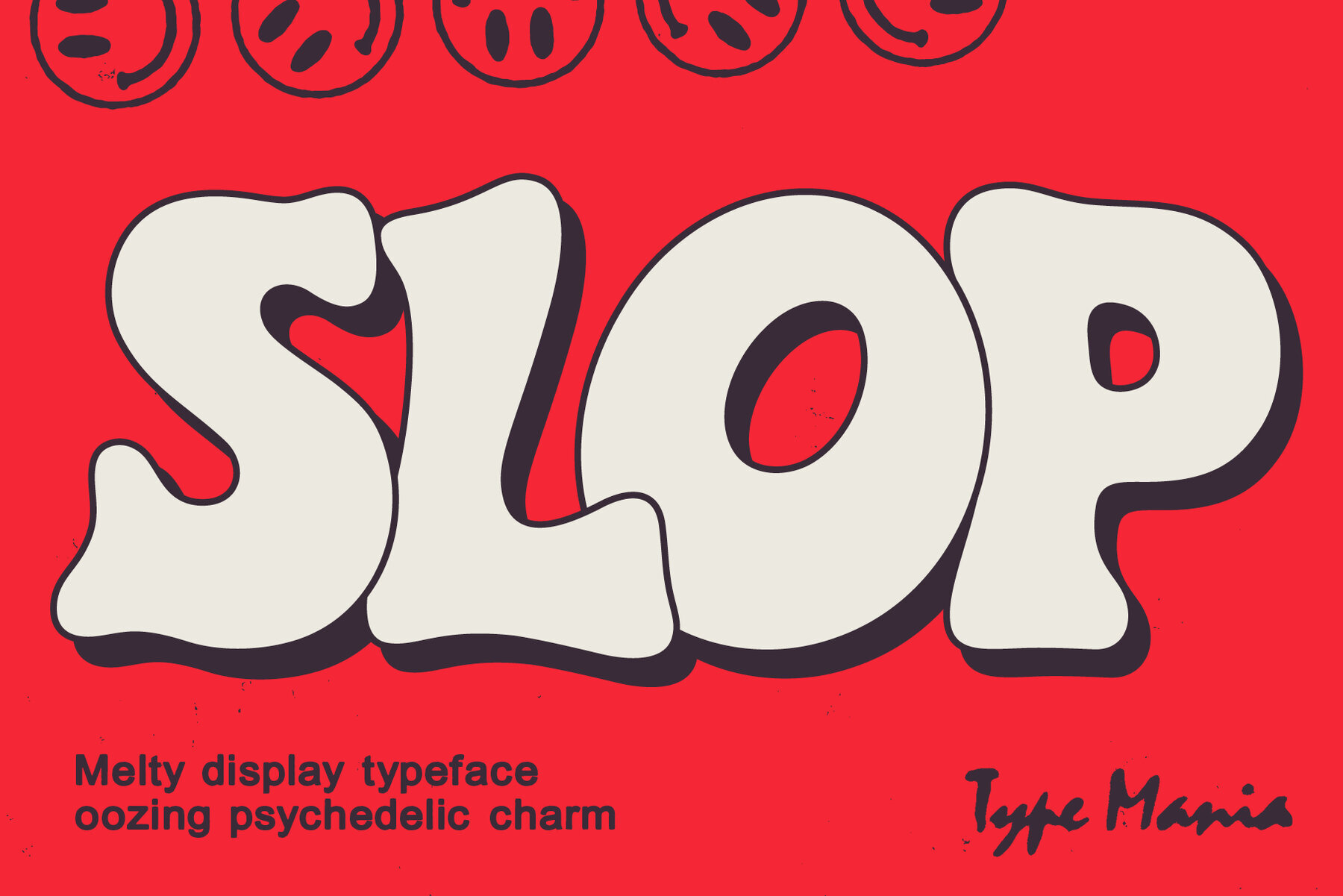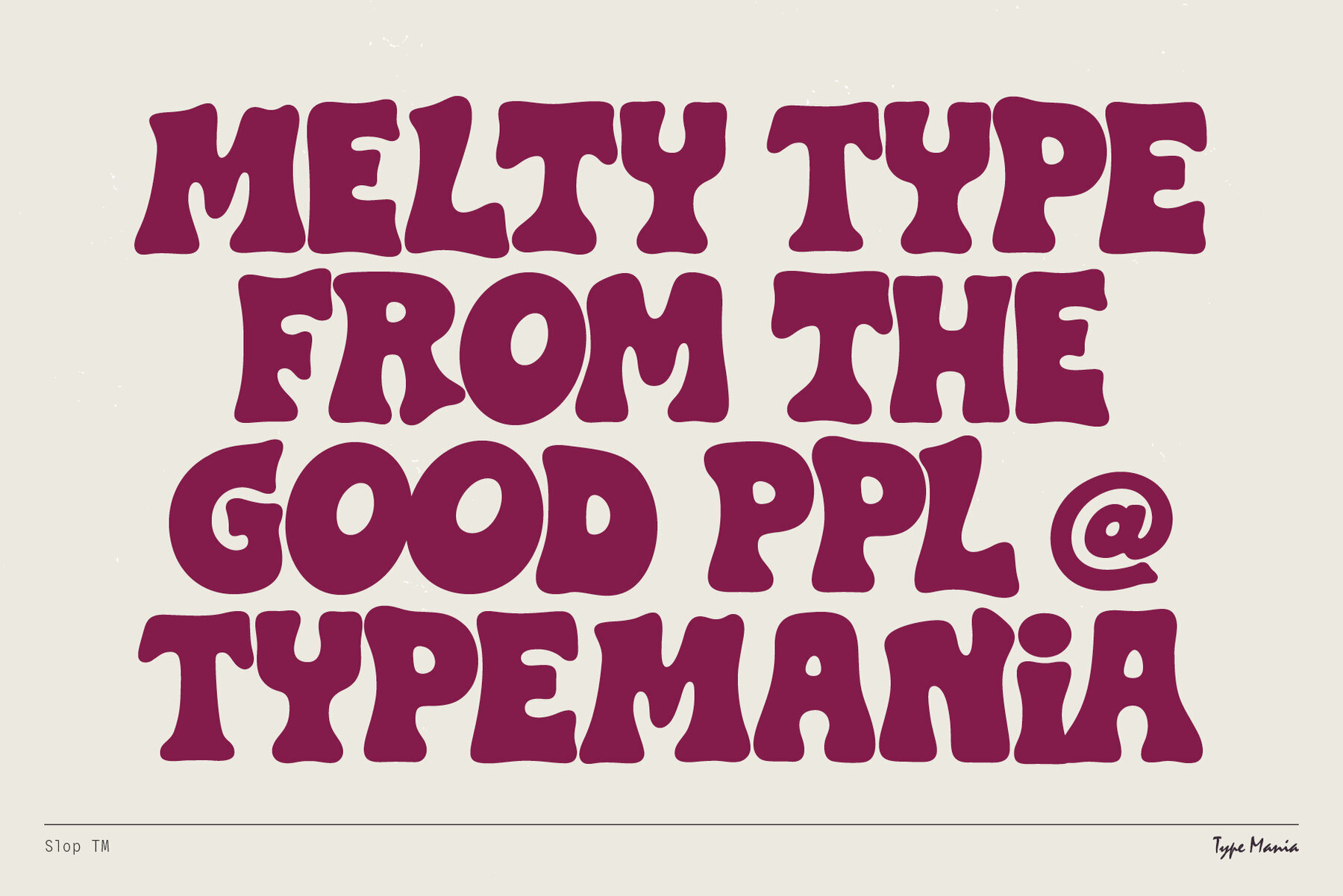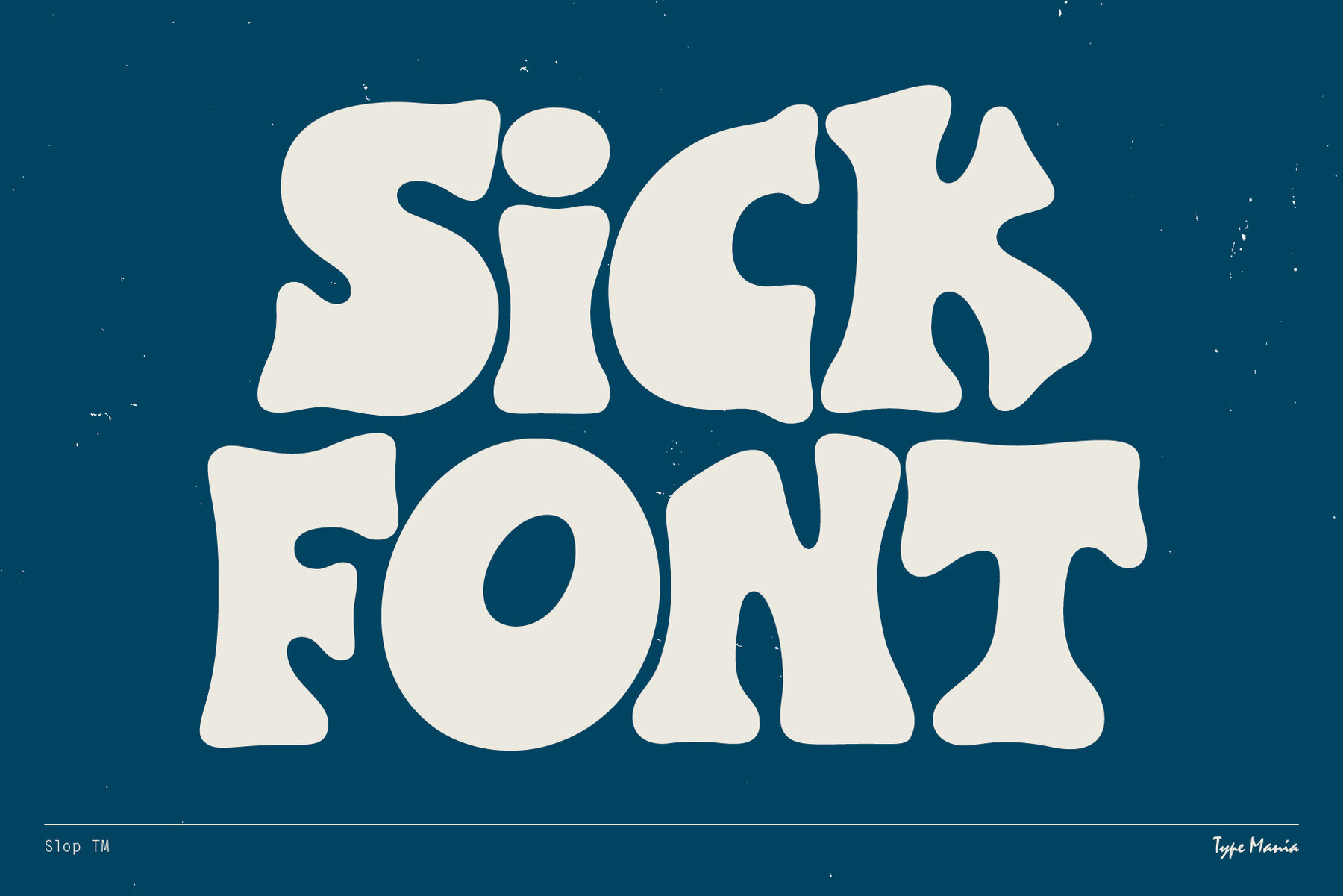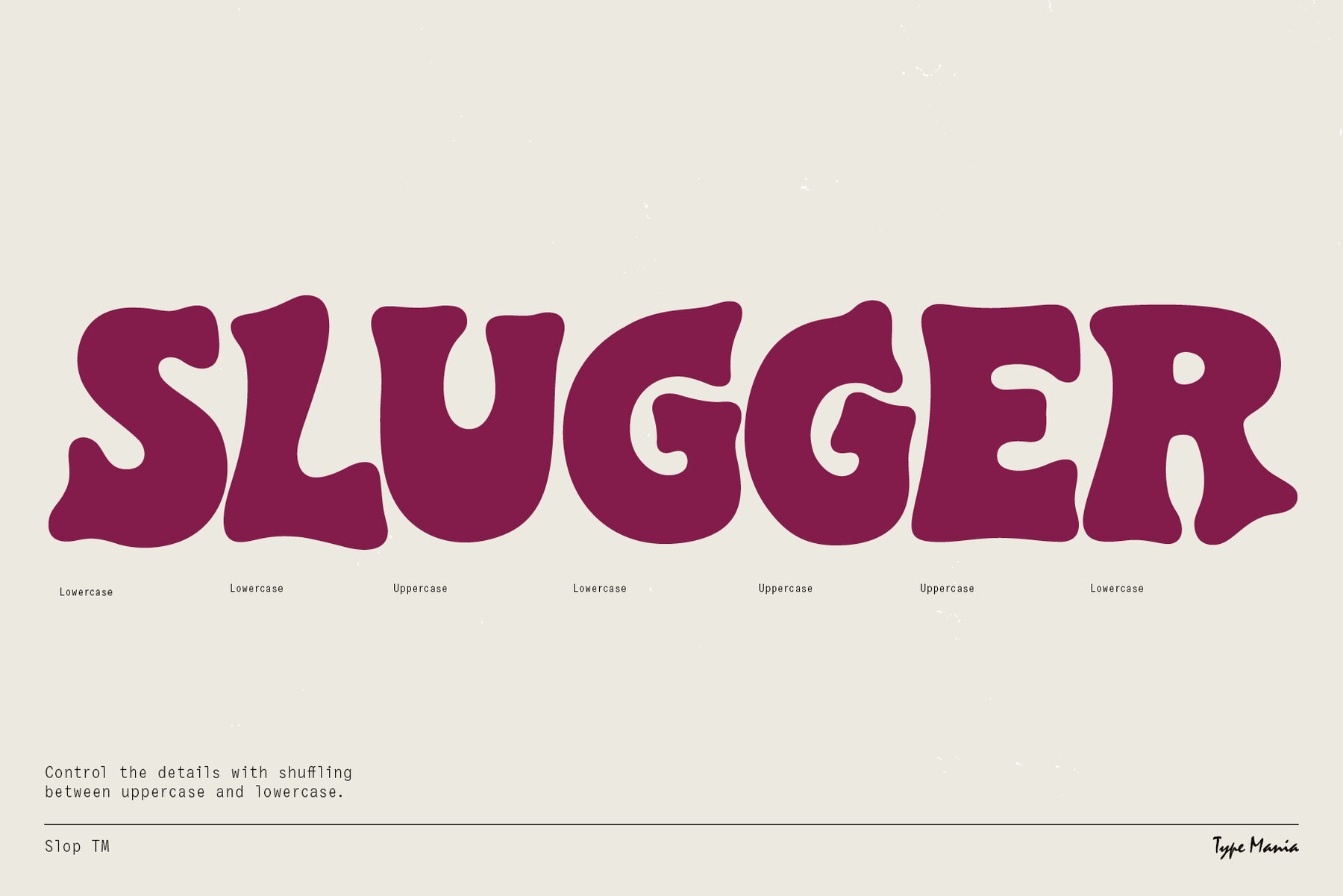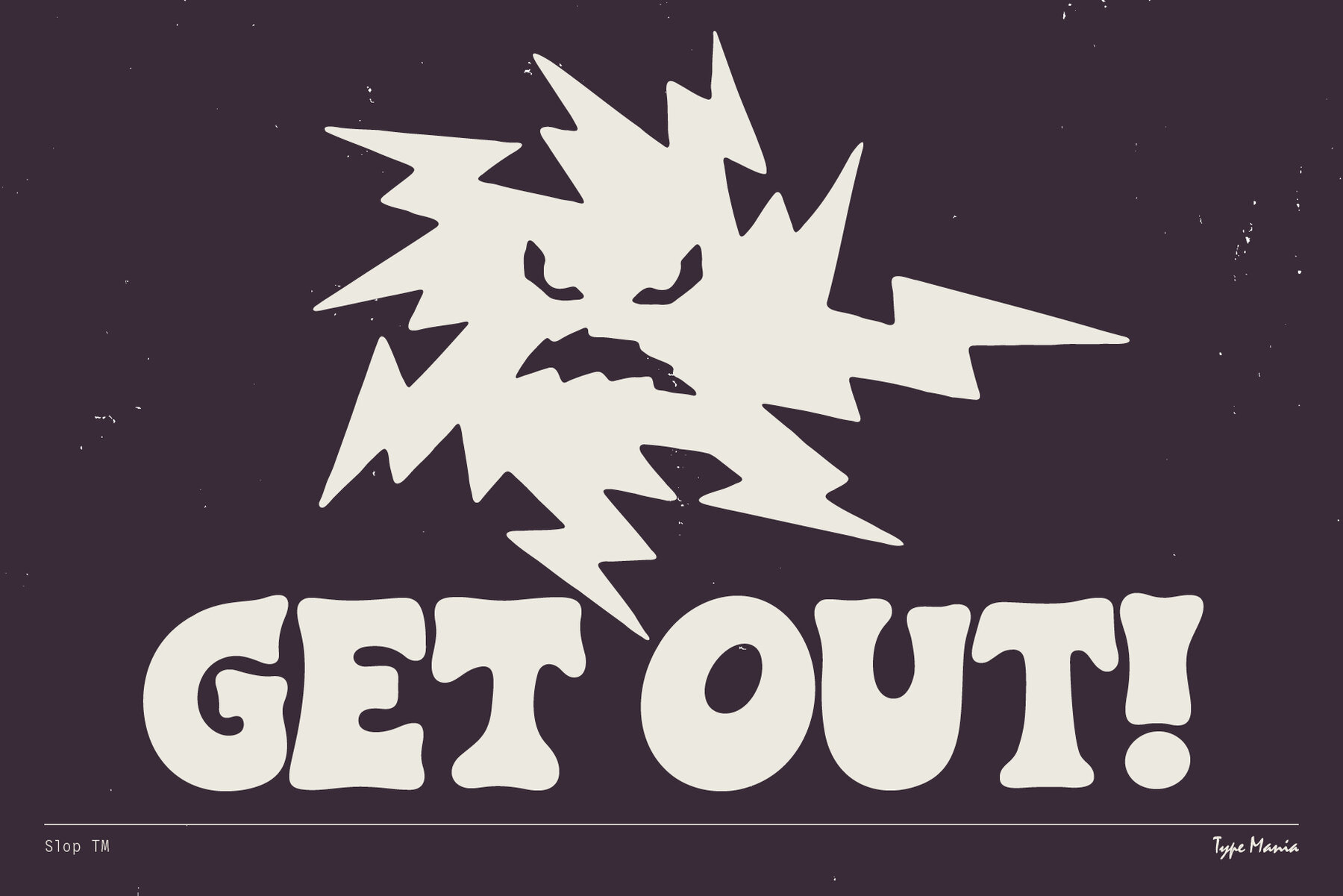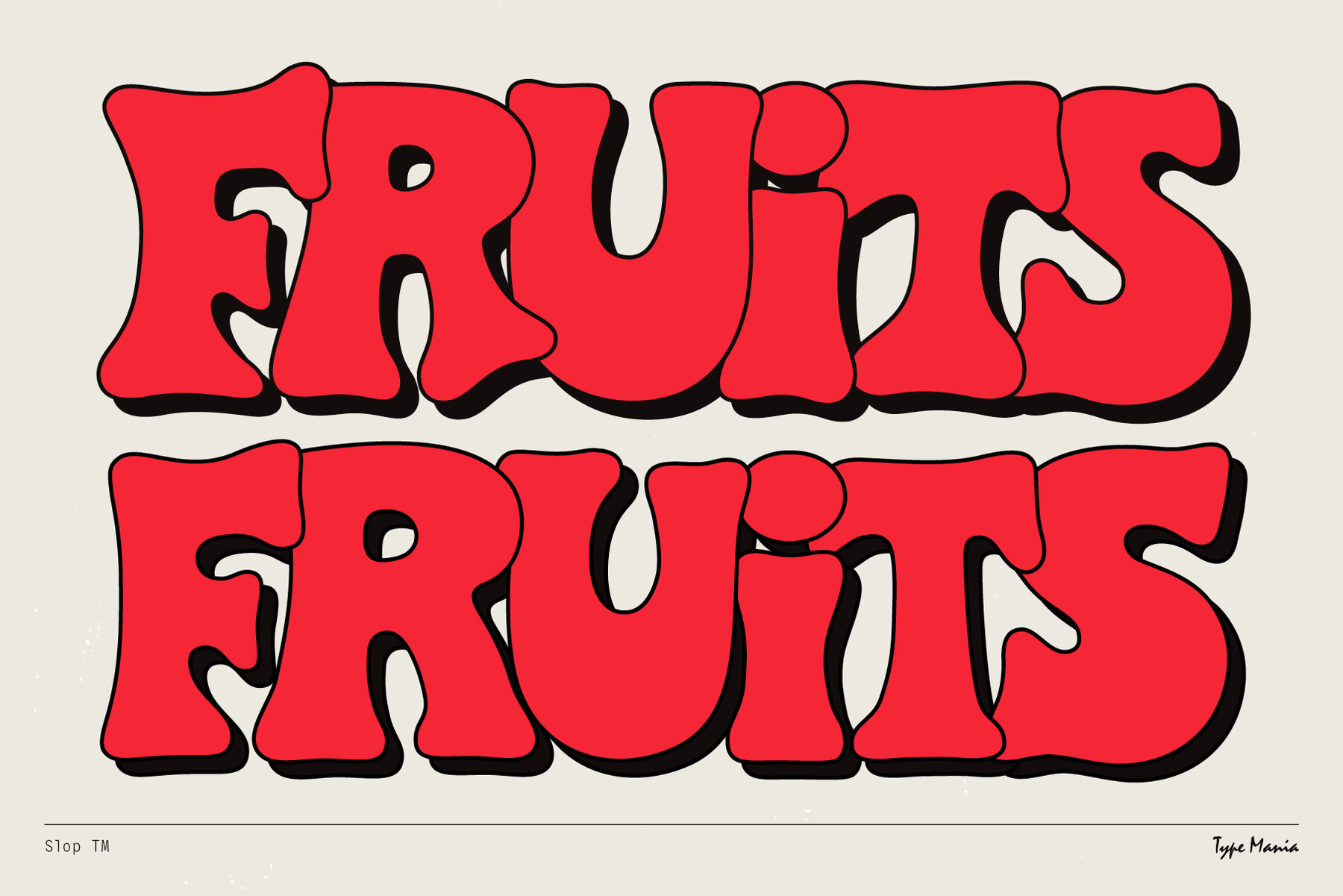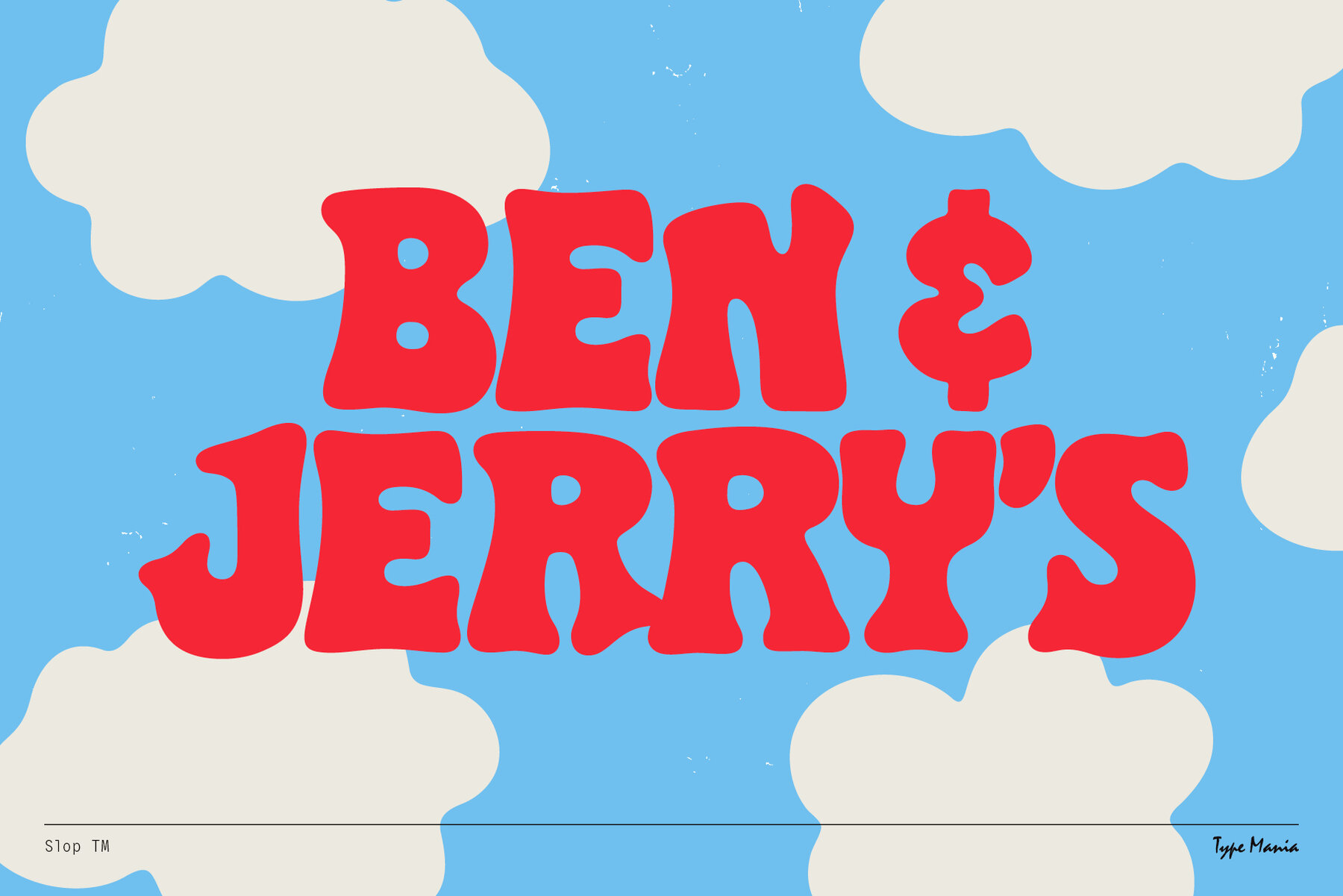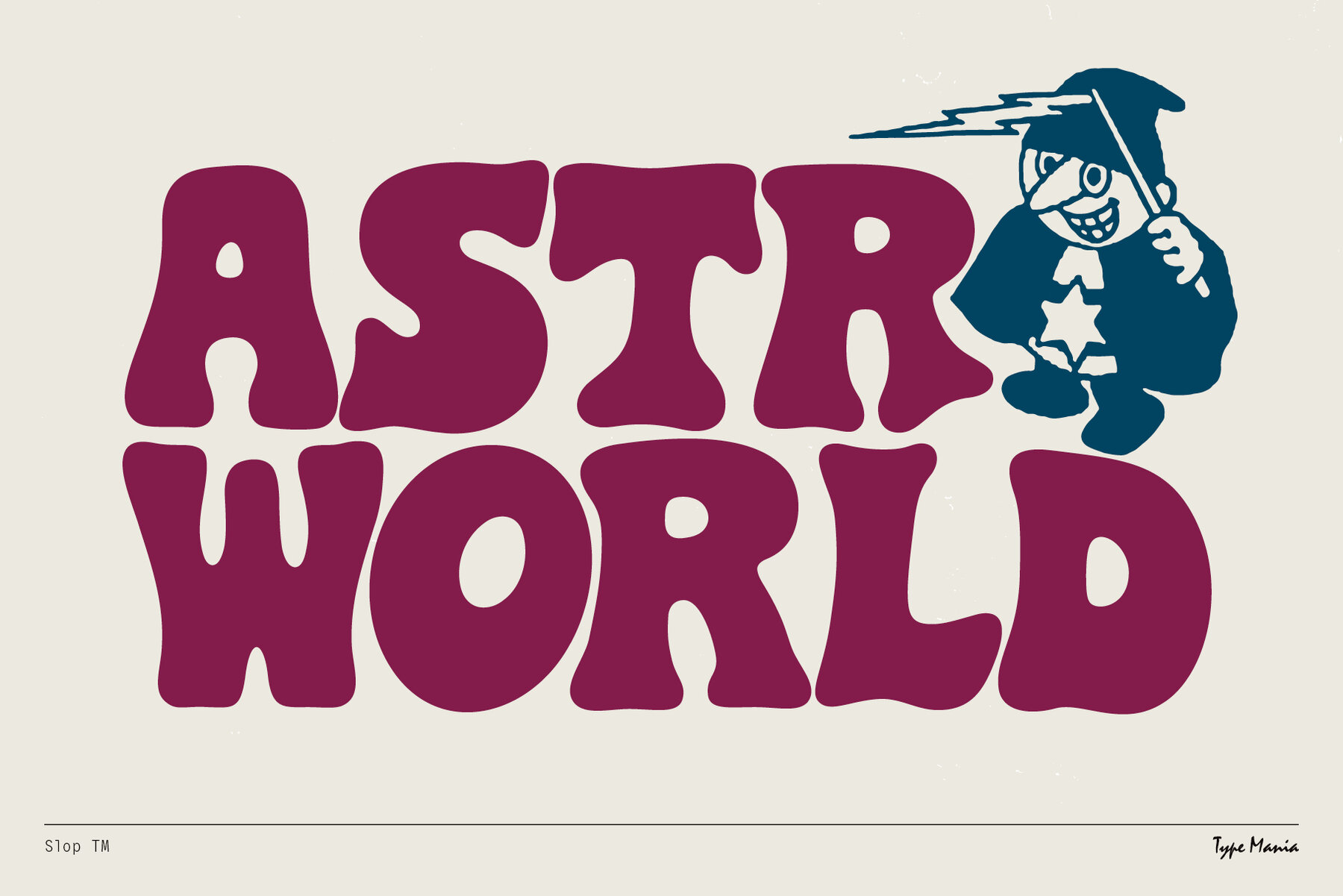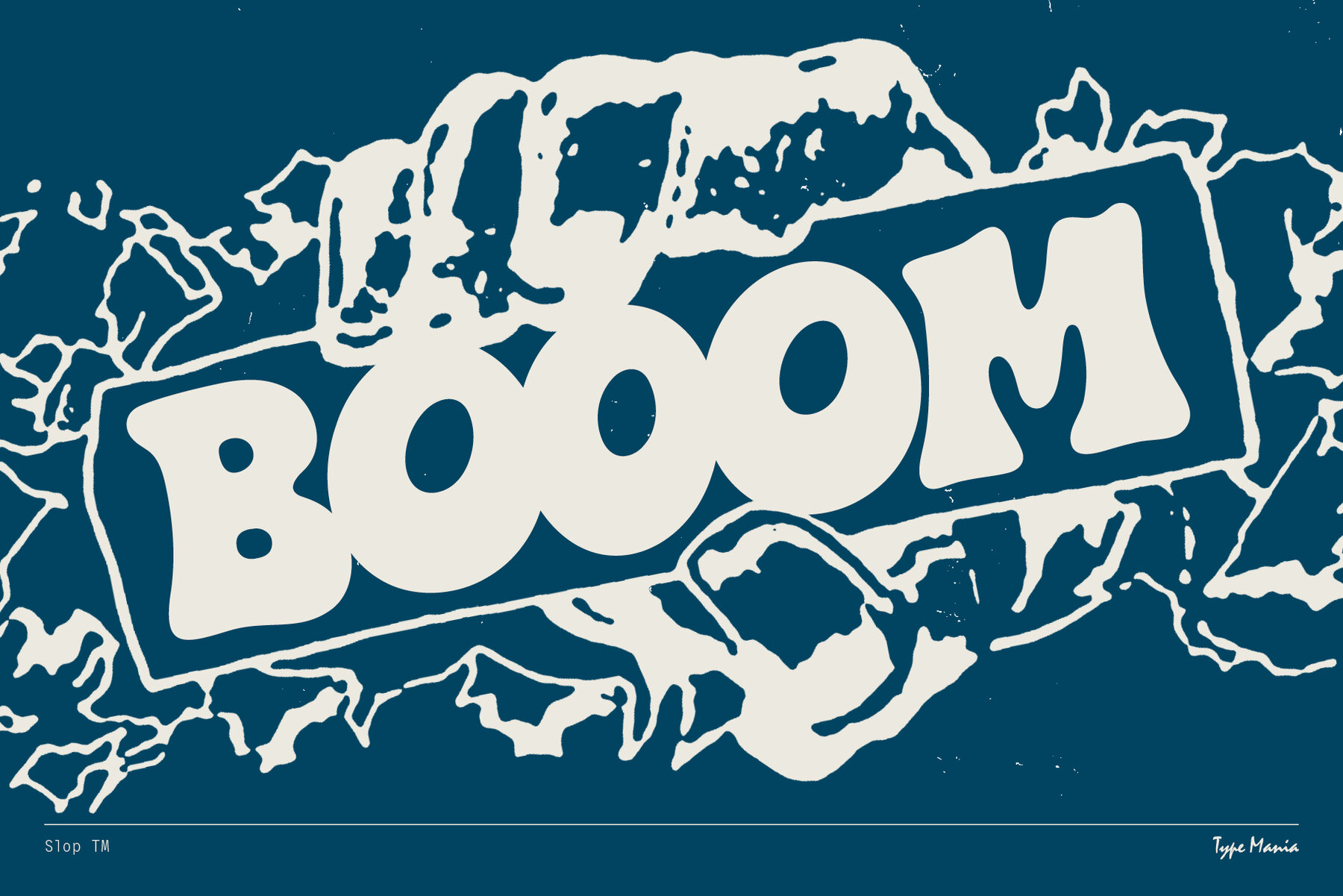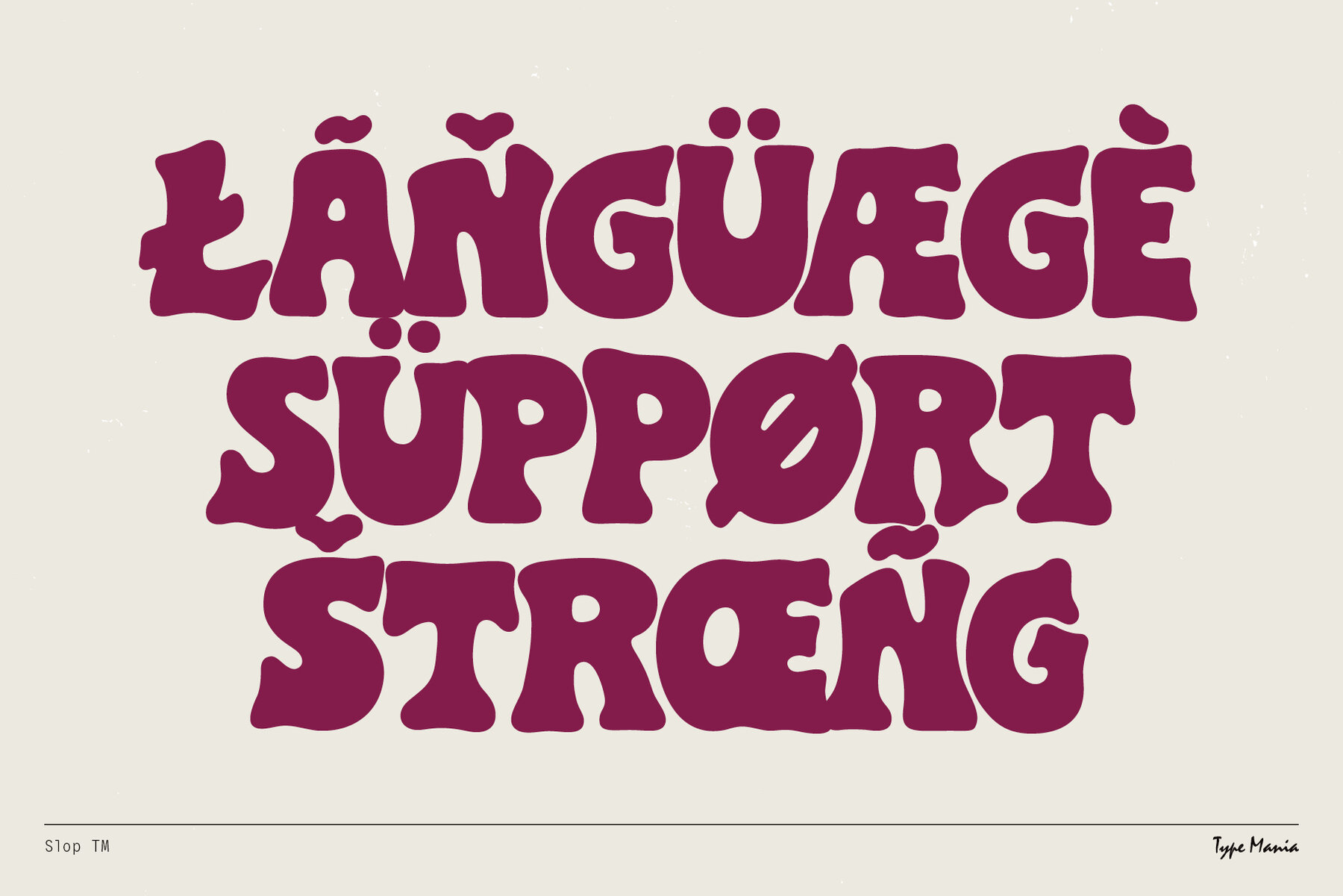
Slop TM: A Psychedelic Typeface with Character
Slop TM is a vibrant, chunky display typeface that radiates a unique psychedelic charm. Designed to make a bold statement, it is perfect for eye-catching posters, distinctive branding, and dynamic editorial projects.